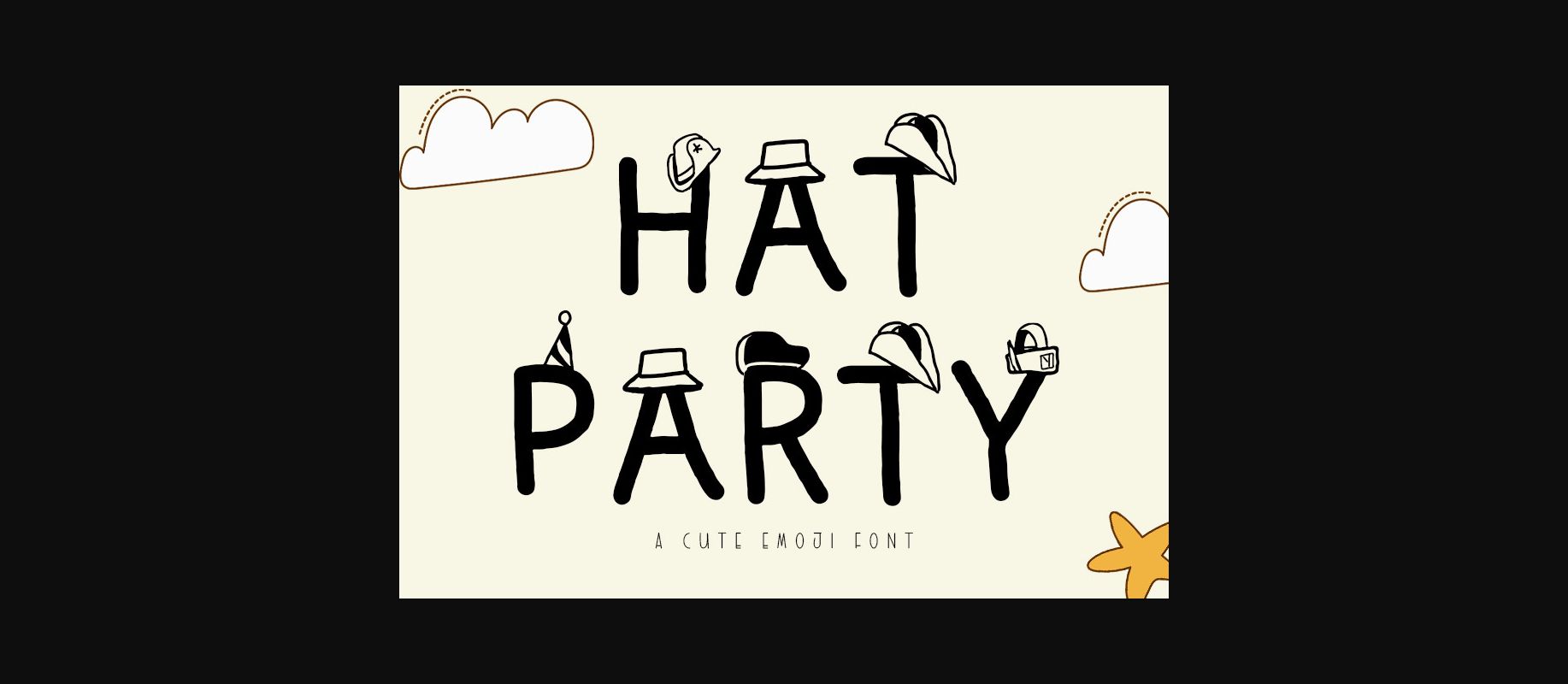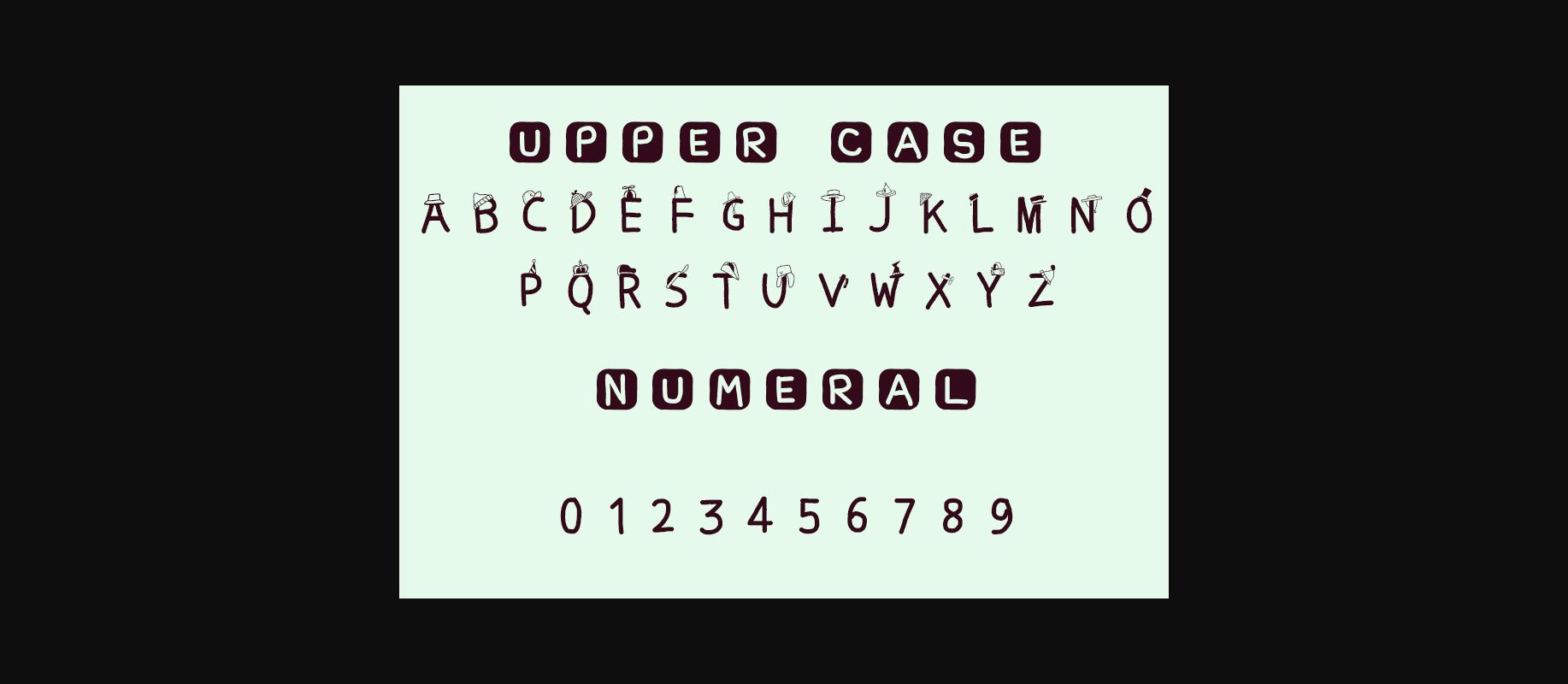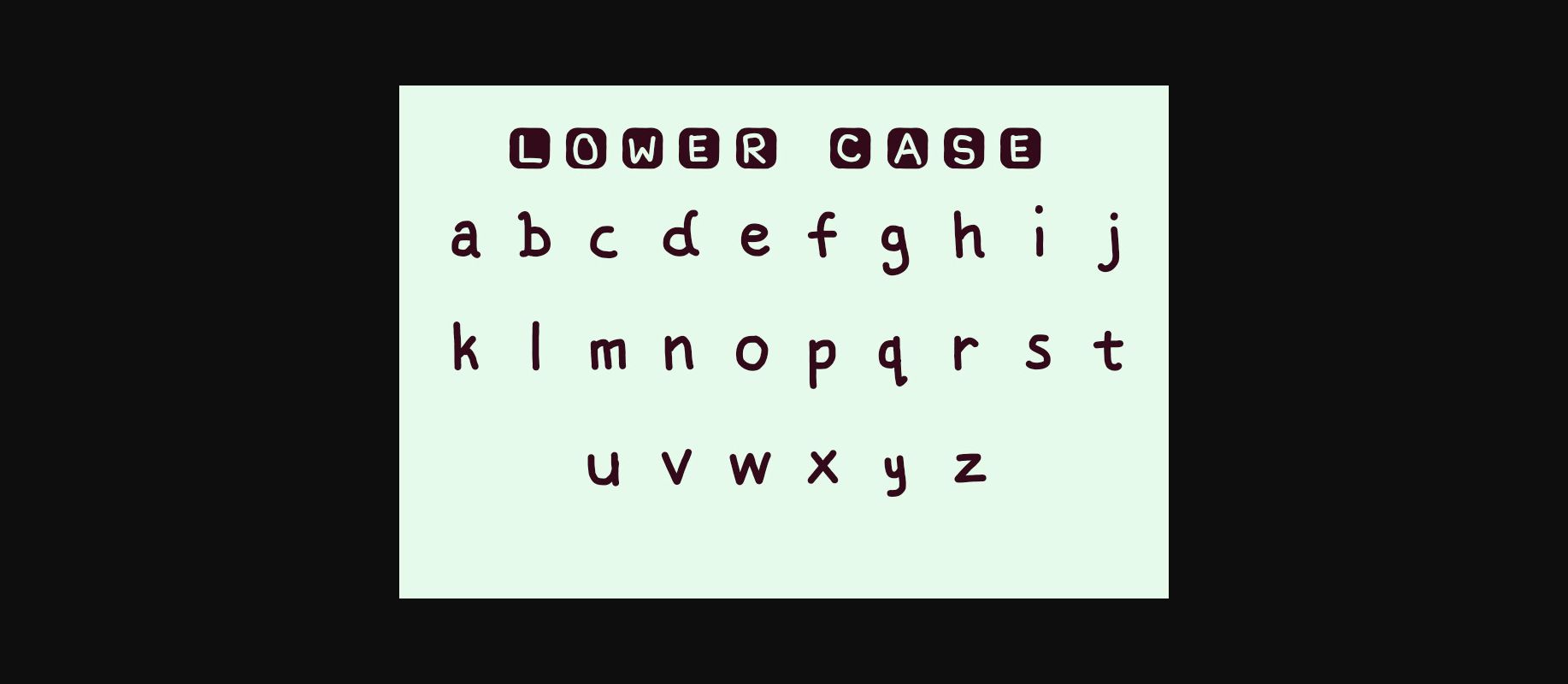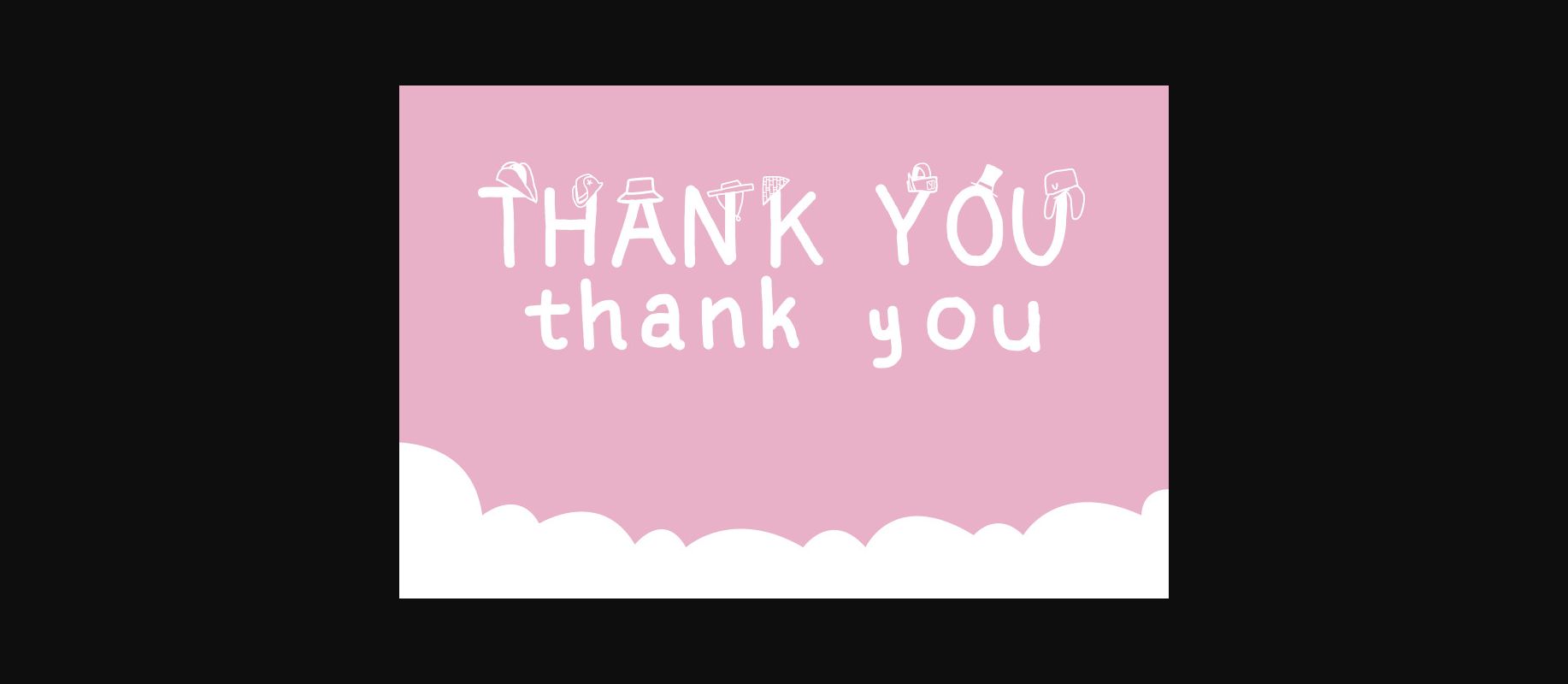
Hat Party Font
About Hat Party Font
Hat Party is a sweet decorative font, featuring hats on nearly each character. No matter the topic, this font will be an incredibly asset to your fonts’ library, as it has the potential to elevate any creation.